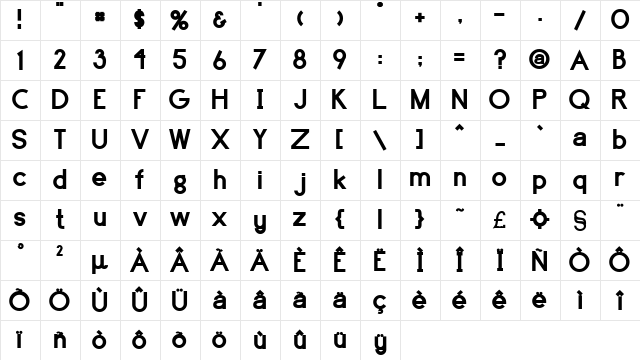
Avinato Bold
Avinato Family
Avinato Bold
Design Context for Avinato
Avinato is a composed and adaptable typeface that performs quietly and consistently across a wide range of design contexts. Its bold stroke weight gives it real presence on the page.